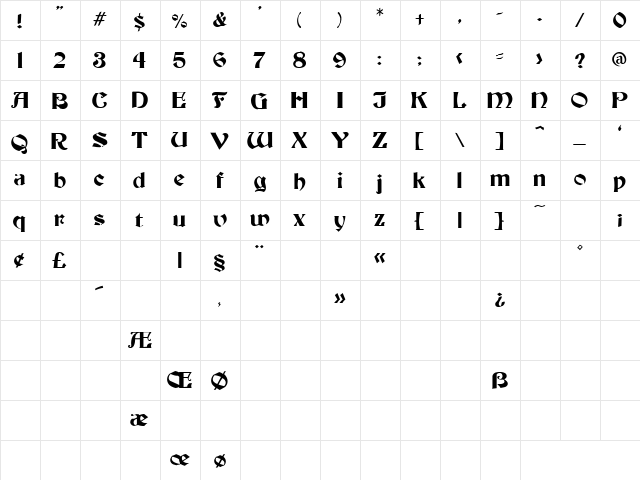
Warlock 1 Regular
Design Context for Warlock 1 Typeface
Warlock 1 is a composed and adaptable typeface that performs quietly and consistently across a wide range of design contexts.